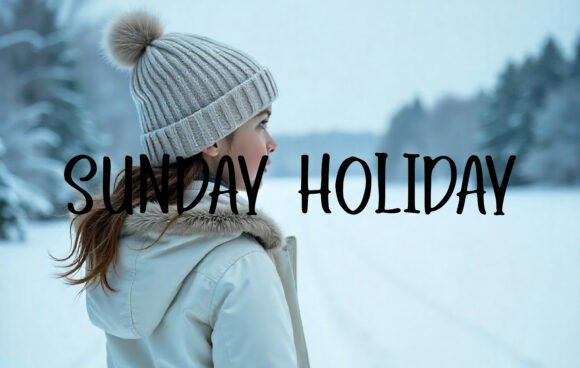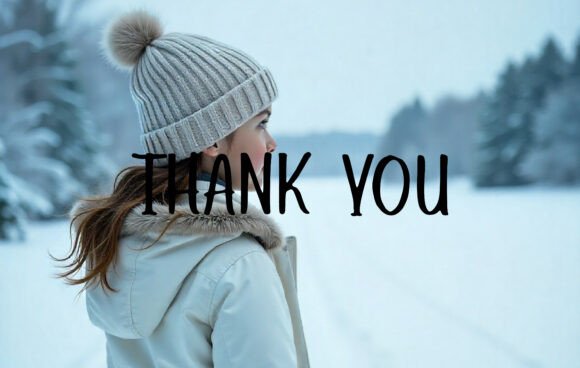
Elysoria Font: The Timeless Handwritten Font for Stunning Designs
Are you a designer or crafter looking for a font that can elevate your designs and make them stand out? Look no further than Elysoria Font, a lovely and timeless handwritten font that is perfect for creating eye-catching logos, branding, and quotes.
What Makes Elysoria Font So Special?
Elysoria Font is a unique and beautiful font that has a special touch to every letter. Its handwritten style gives it a personal and organic feel that is perfect for designs that require a human touch. The font’s creator has carefully crafted each letter to ensure that it is not only aesthetically pleasing but also highly legible.
Elysoria Font is an excellent choice for creating logos, branding, and quotes that require a personal and creative touch. Its unique and beautiful style makes it perfect for:
- Logos: Create a stunning logo for your business or brand with Elysoria Font. Its timeless style ensures that your logo will stand the test of time.
- Branding: Use Elysoria Font to create a consistent brand identity that reflects your business’s personality and values.
- Quotes: Add a touch of elegance and sophistication to your quotes with Elysoria Font. Its beautiful style makes it perfect for inspirational quotes, sayings, and phrases.
Why Choose Elysoria Font?
There are many reasons why Elysoria Font is an excellent choice for designers and crafters. Here are a few:
- Unique and Beautiful Style: Elysoria Font has a unique and beautiful style that sets it apart from other fonts.
- Highly Legible: Despite its creative style, Elysoria Font is highly legible, making it perfect for designs that require a clear and concise message.
- Timeless: Elysoria Font has a timeless style that ensures it will never go out of fashion.
- Versatile: Elysoria Font is versatile and can be used for a wide range of designs, from logos and branding to quotes and more.
Tips for Using Elysoria Font
Here are a few tips for using Elysoria Font to get the most out of this beautiful font:
- Use it sparingly: Elysoria Font is a beautiful font, but it can be overwhelming if used too much. Use it sparingly to create a focal point in your design.
- Pair it with other fonts: Elysoria Font pairs well with other fonts, especially sans-serif fonts. Experiment with different font combinations to create a unique look.
- Experiment with colors: Elysoria Font looks great in a variety of colors. Experiment with different colors to find the one that works best for your design.
Elysoria Font is a lovely and timeless handwritten font that is perfect for creating eye-catching logos, branding, and quotes. Its unique and beautiful style makes it a standout font that can elevate your designs and make them stand out. With its highly legible style, timeless design, and versatility, Elysoria Font is an excellent choice for designers and crafters. So why wait? Try Elysoria Font today and see the difference it can make in your designs!